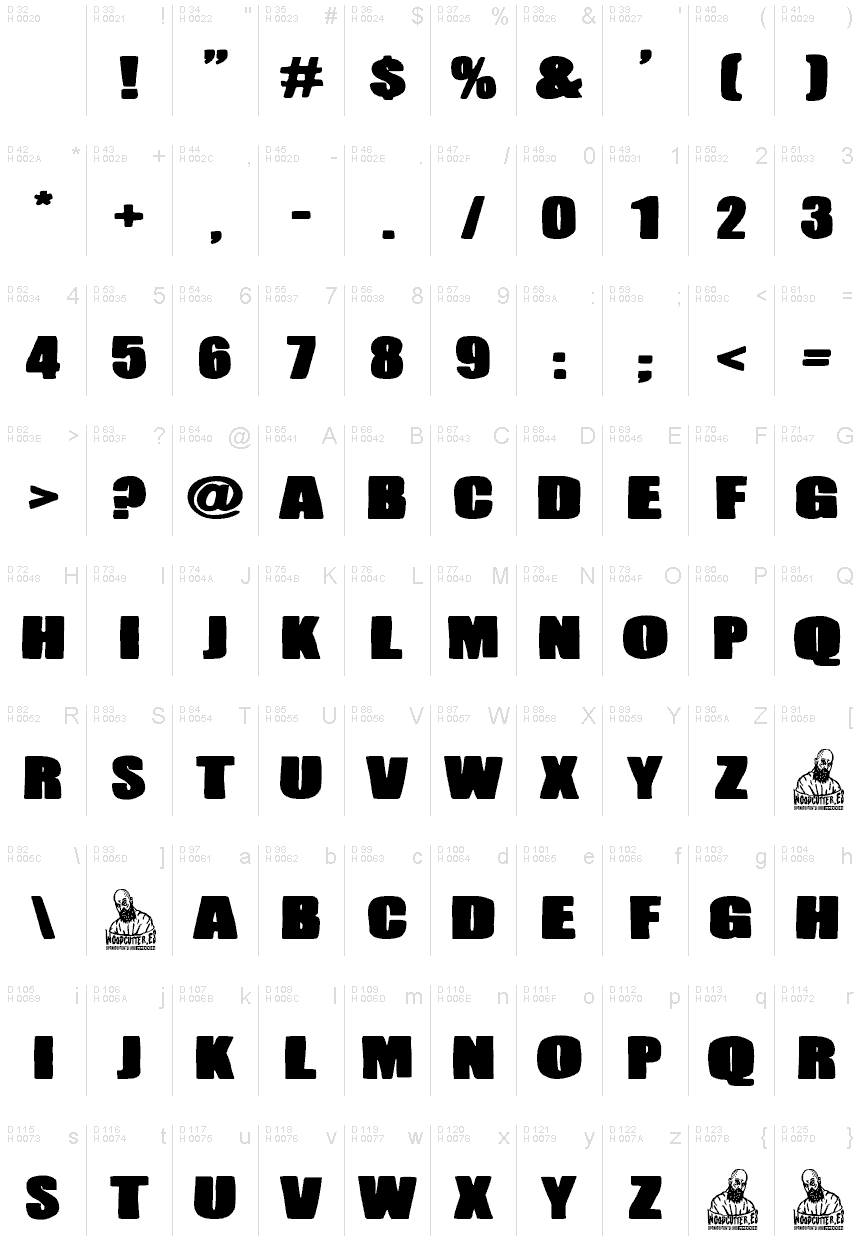
Impact Club
Impact Club font by Woodcutter is a bold display font with a strong presence and modern appeal. It ensures your texts bring across an authoritative feel and make a lasting impression that impacts the readers. The font that carries both strength and readability also has an element of freshness for young audiences to enjoy. Try not more than one word at the time or stick to short sentences so as not to overwhelm the viewers.
This free display font can work great in magazine covers, brochures’ covers, large poster designs, and billboards. It is definitely recommended for branding and packaging along with lettering projects. Websites can also benefit from this great typeface by using it in navigations, buttons, or text strips where much attention is required.